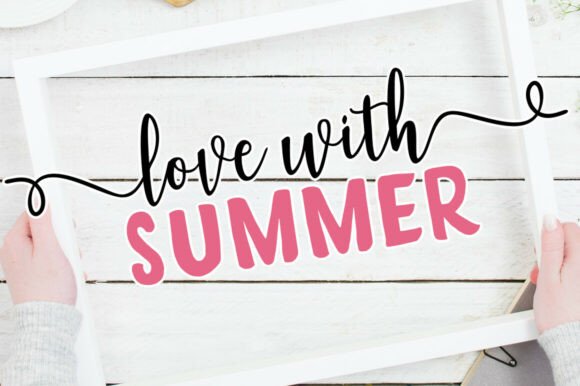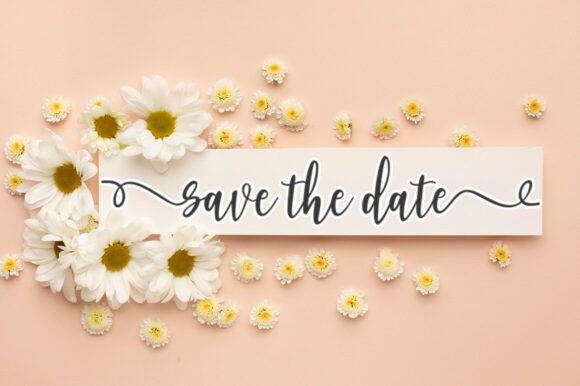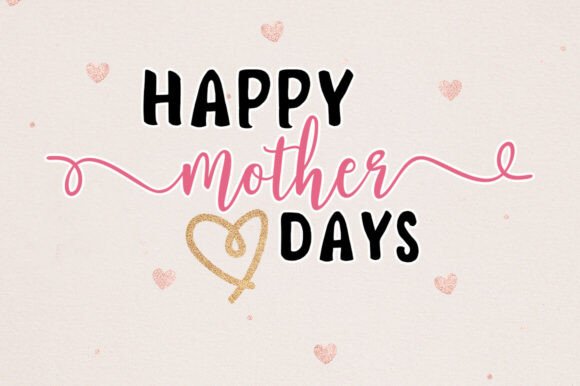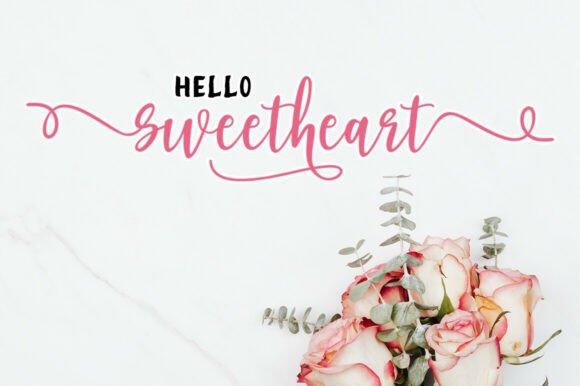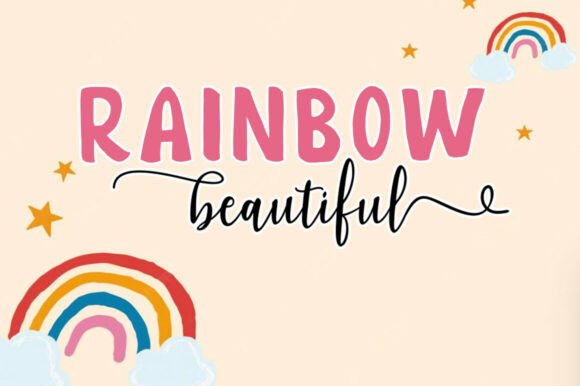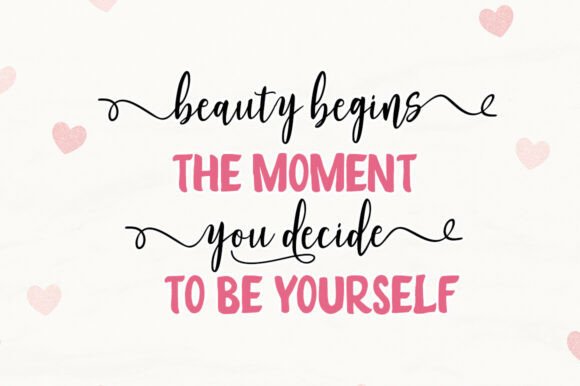
Introduction to Holiday Sunday Duo Font
The Holiday Sunday font duo blends charm and boldness through its contrasting styles: a free-flowing handwritten script and a rounded, thick sans-serif.
The word โholidayโ glides with elegant swashes and smooth curves, evoking a casual, heartfelt toneโperfect for handwritten quotes or lifestyle branding In contrast, โSUNDAYโ grabs attention with its playful, bubble-like uppercase letters outlined in white, adding both depth and a youthful punch.